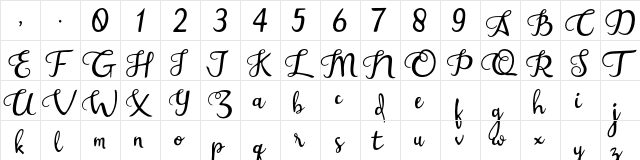
Assessment Handwritten FREE Regular
Design Context for Assessment Handwritten FREE Typeface
Assessment Handwritten FREE flows with the natural rhythm of handwritten lettering, making it ideal for designs that call for warmth and personal expression.
Font Pairing: Combine Assessment Handwritten FREE with a simple geometric sans for maximum contrast — the tension between flowing curves and clean structure is a classic typographic pairing.
Pro Tip: Use Assessment Handwritten FREE for short runs of text — names, titles, or taglines. Extended body copy in script faces tires the eye quickly.